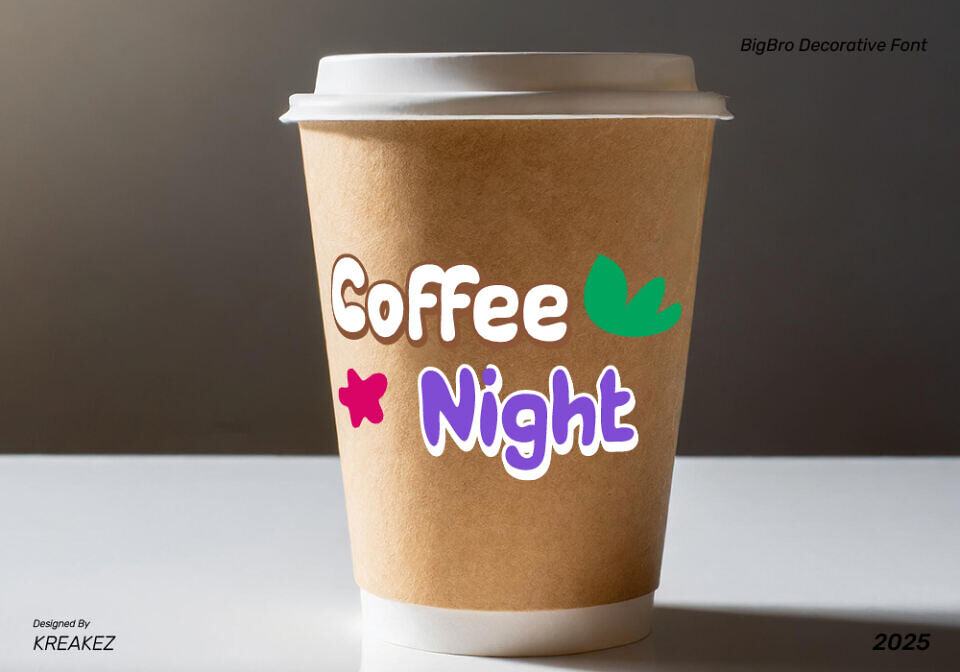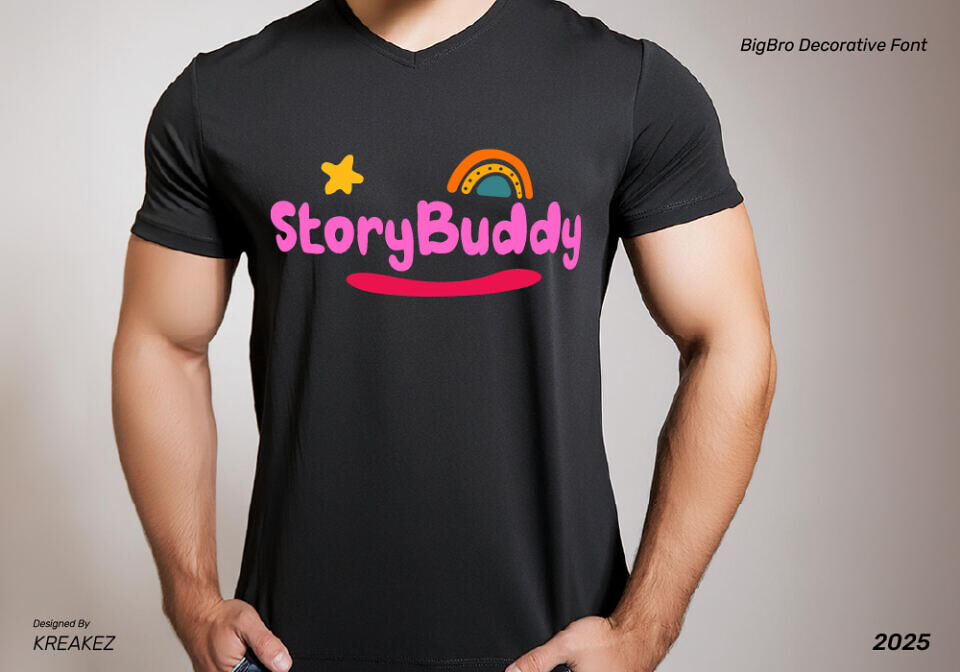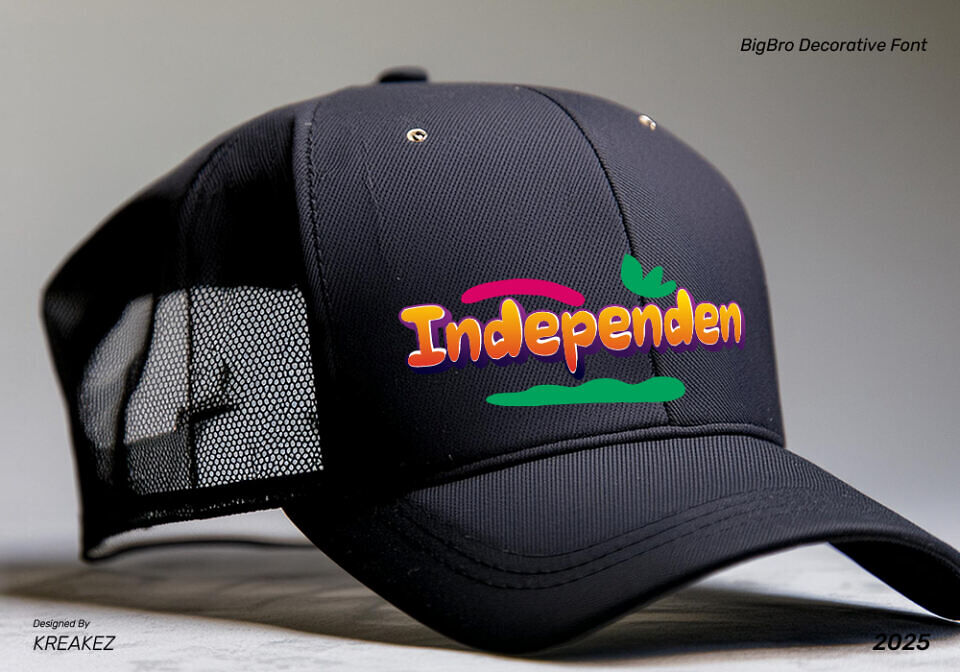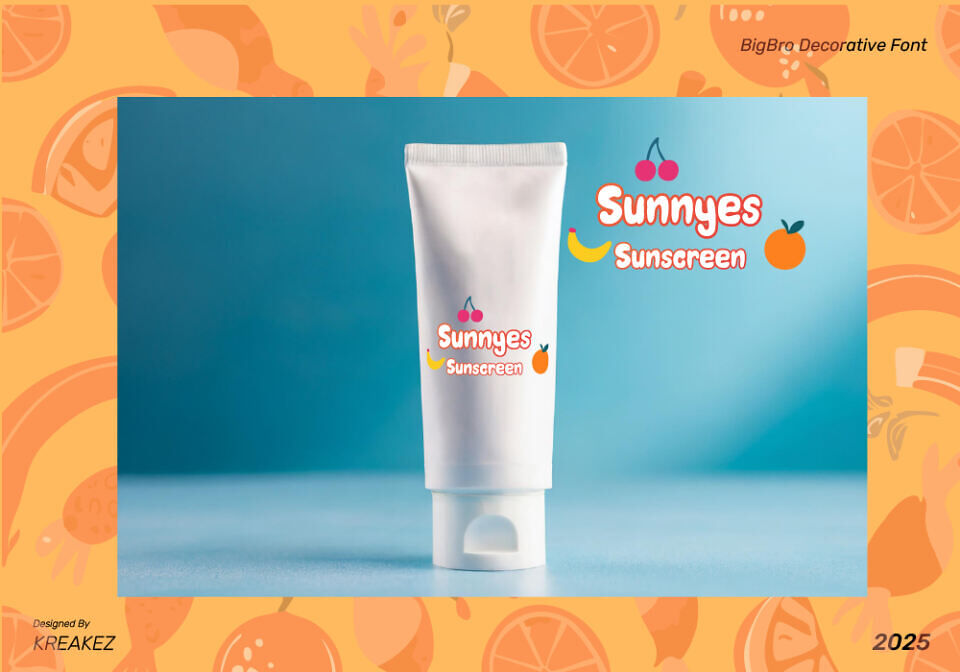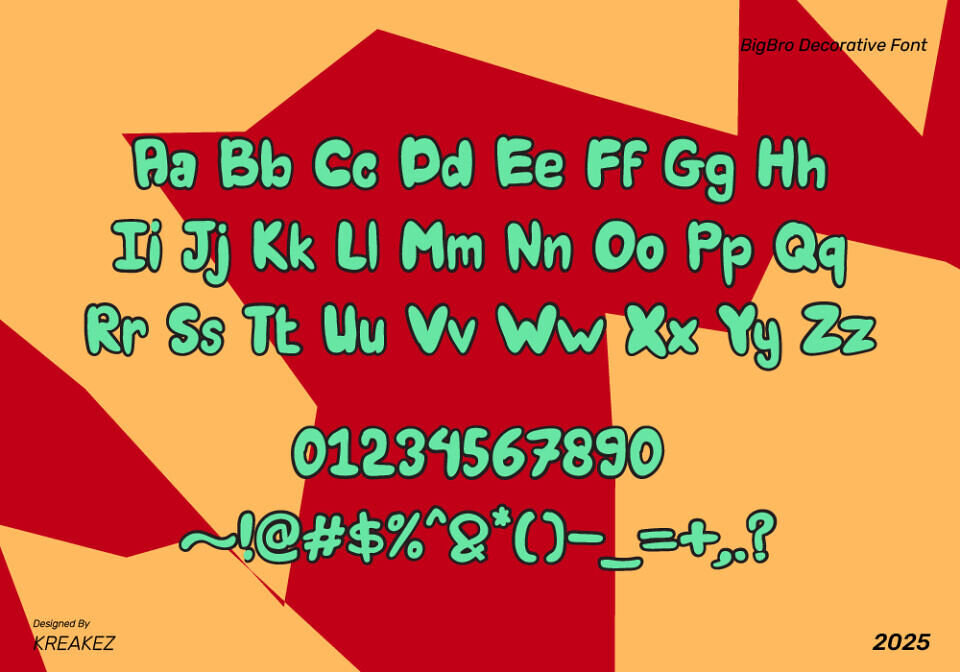
Introducing “BigBro”, a decorative playful, child‐friendly font that combines chunky, rounded uppercase and lowercase letters with a full set of clearly shaped numerals and punctuation, all meticulously kerned and hinted for sharp legibility at any size.
Its balloon-like forms and optional stylistic alternates lend a funyet professional feel, making it ideal for children’s books, branding, packaging, educational materials, and any design needing a warm, approachable personality.